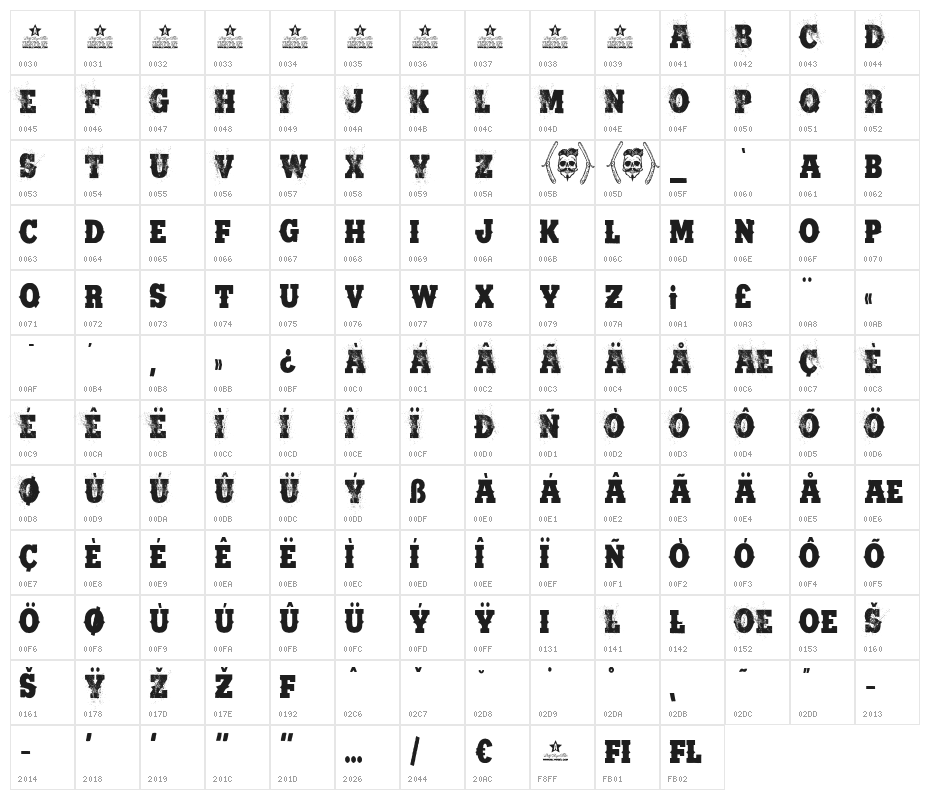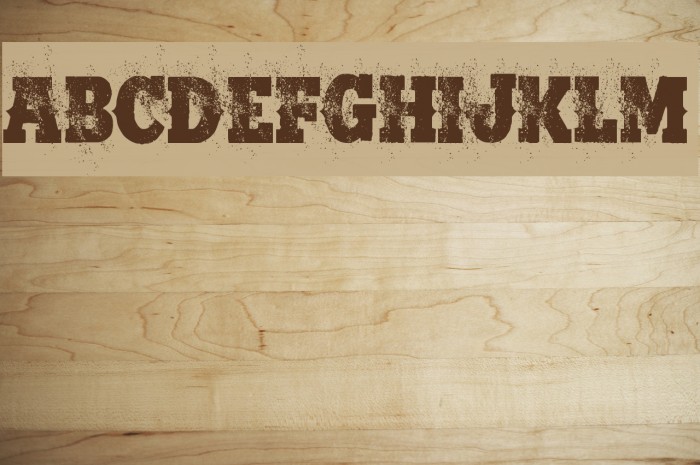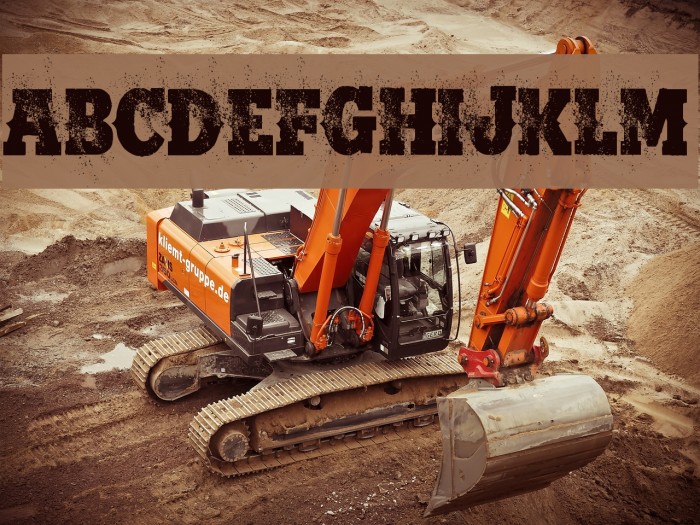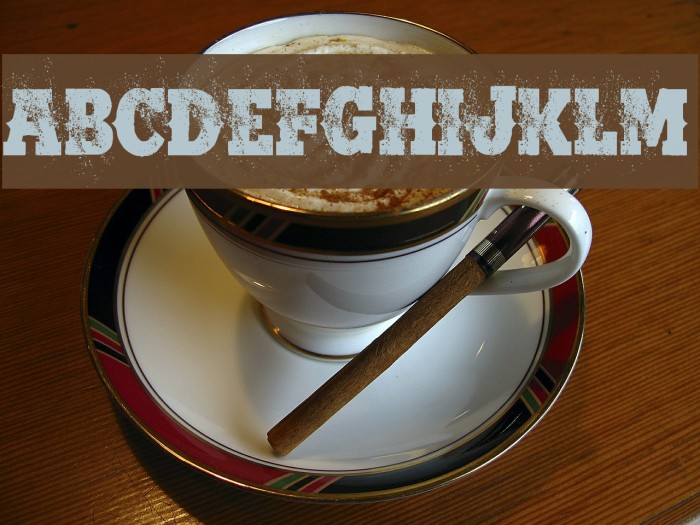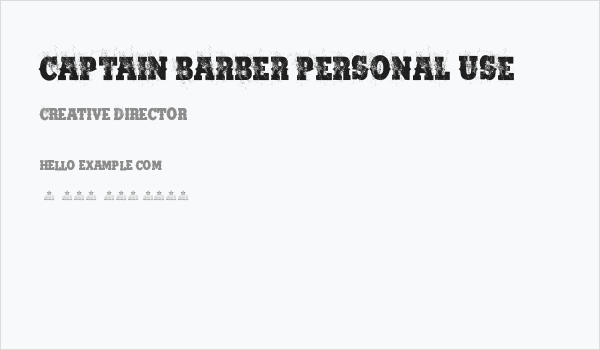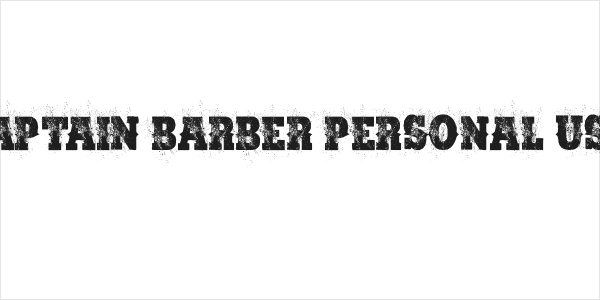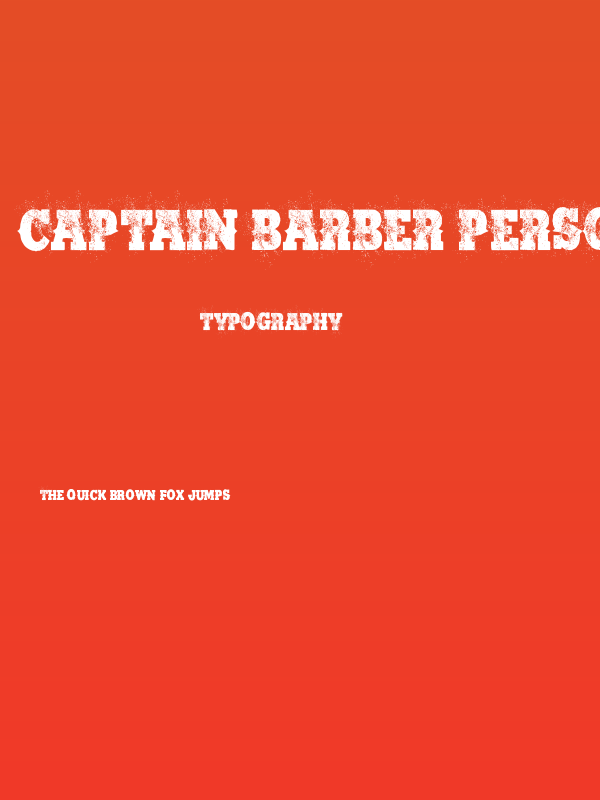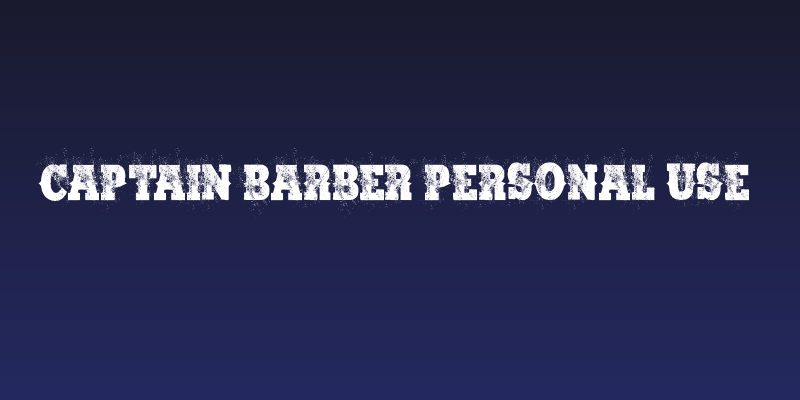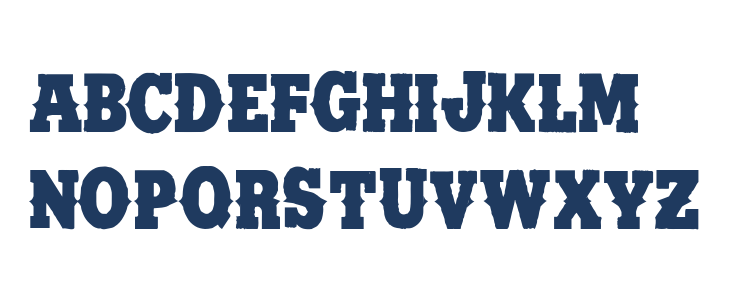
CAPTAIN BARBER PERSONAL USE Font
CAPTAIN BARBER PERSONAL USE Description
This font features a bold, distressed style with a strong, vintage aesthetic. The uppercase letters are heavily textured, giving them a rugged, worn appearance that adds character and depth. The font's boldness makes it stand out, while the distressed detailing provides a unique, handcrafted feel. The characters are uniformly wide, contributing to a balanced and cohesive look. This font is ideal for projects that require a strong, impactful visual presence with a touch of nostalgia.
| Proposed Projects | Ideal for vintage-themed posters, logos, branding, and apparel design. |